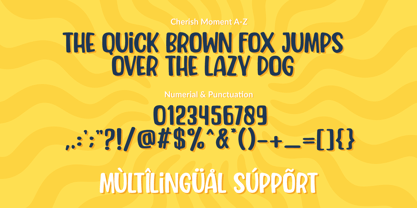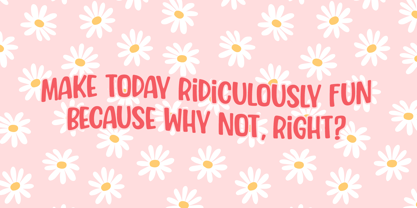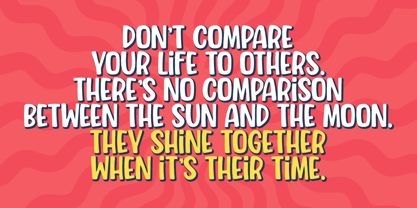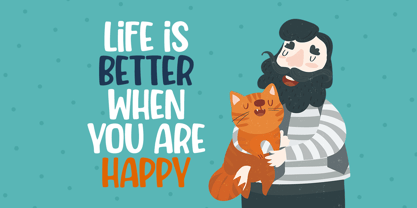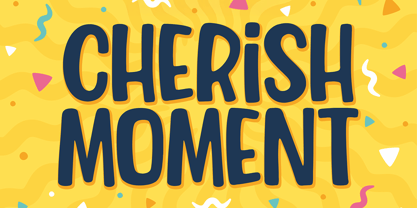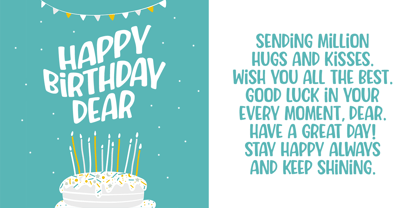
Cherish Moment
by Orenari
The Cherish Moment Font Family was designed by Lia Wijayanti and published by Orenari. Cherish Moment contains 1 styles. More about this family
Cherish Moment is a fun and bold typeface designed to bring a sense of happiness and joy into every creation. With its natural curves and irresistibly cute character, this font effortlessly fits into a wide range of designs, from playful crafts and creative projects to eye-catching branding and social media visuals. Its charming personality makes it perfect for every occasion, whether you're celebrating special moments or simply adding a cheerful touch to your work. Elevate and scale up the fun in your designs with the delightful spirit of Cherish Moment.
Designers: Lia Wijayanti
Foundry: Orenari